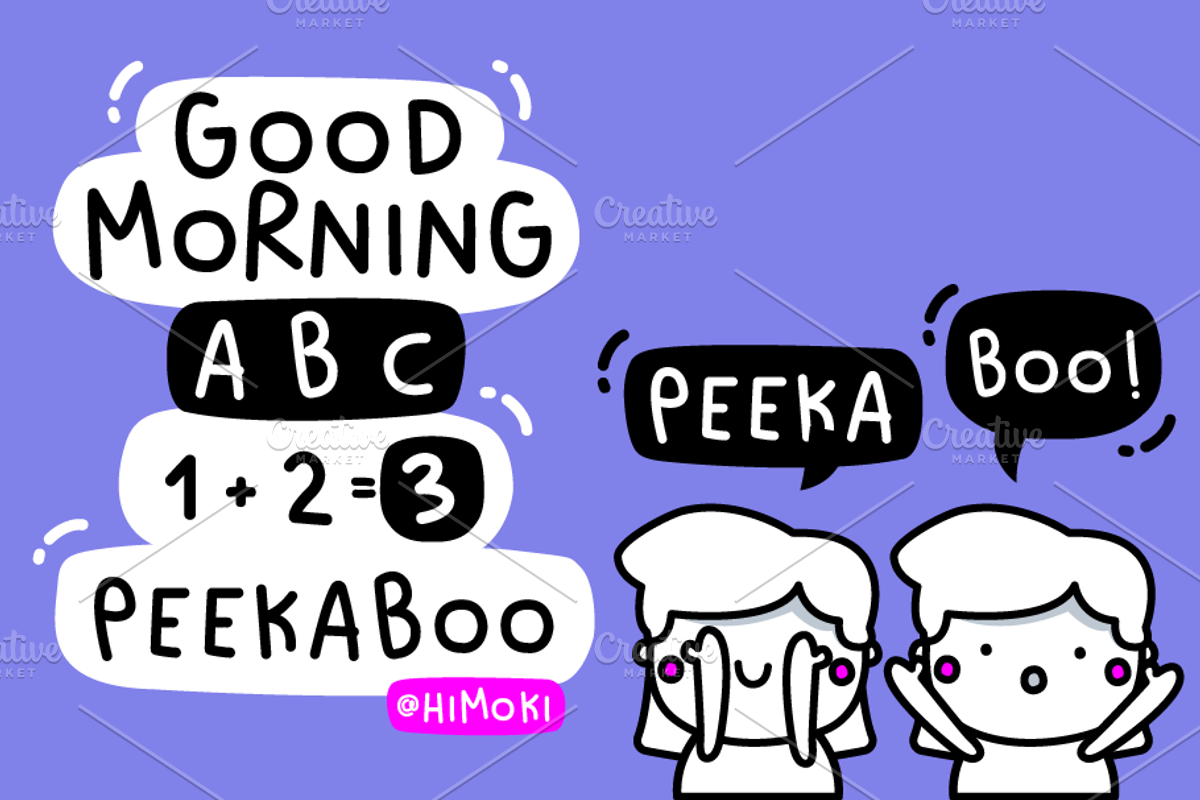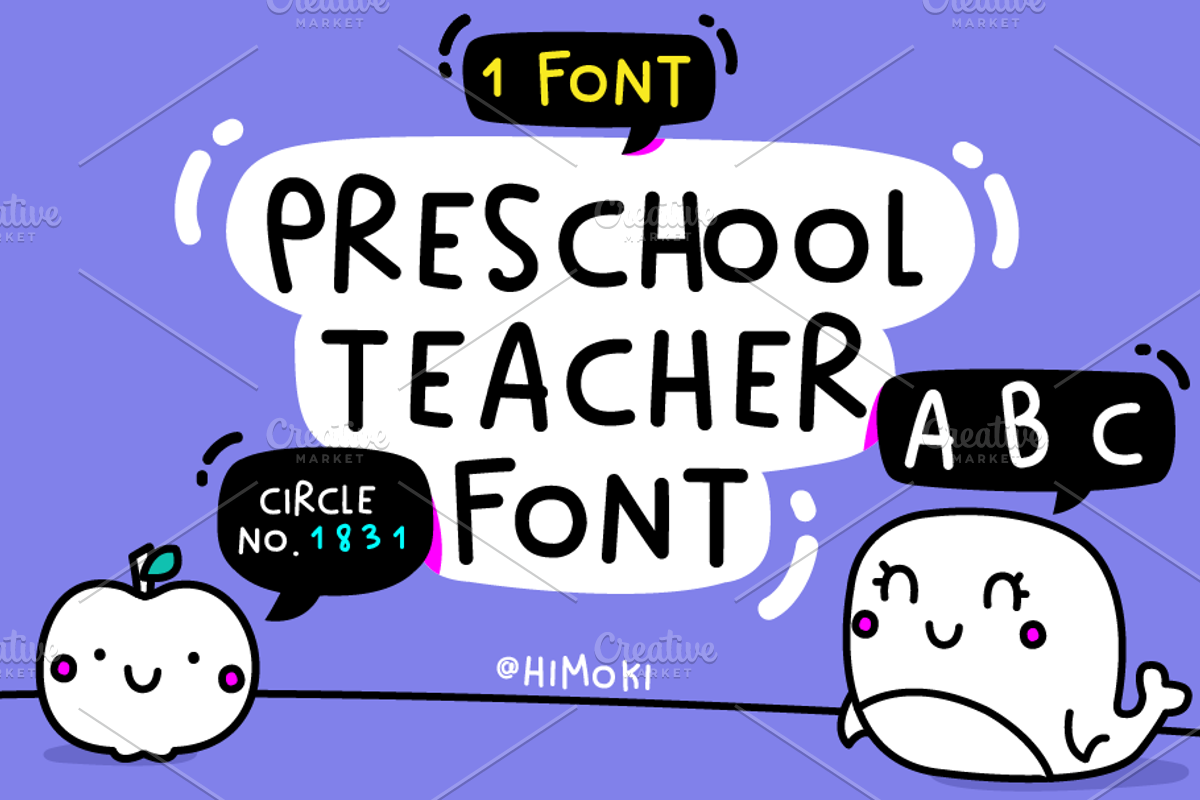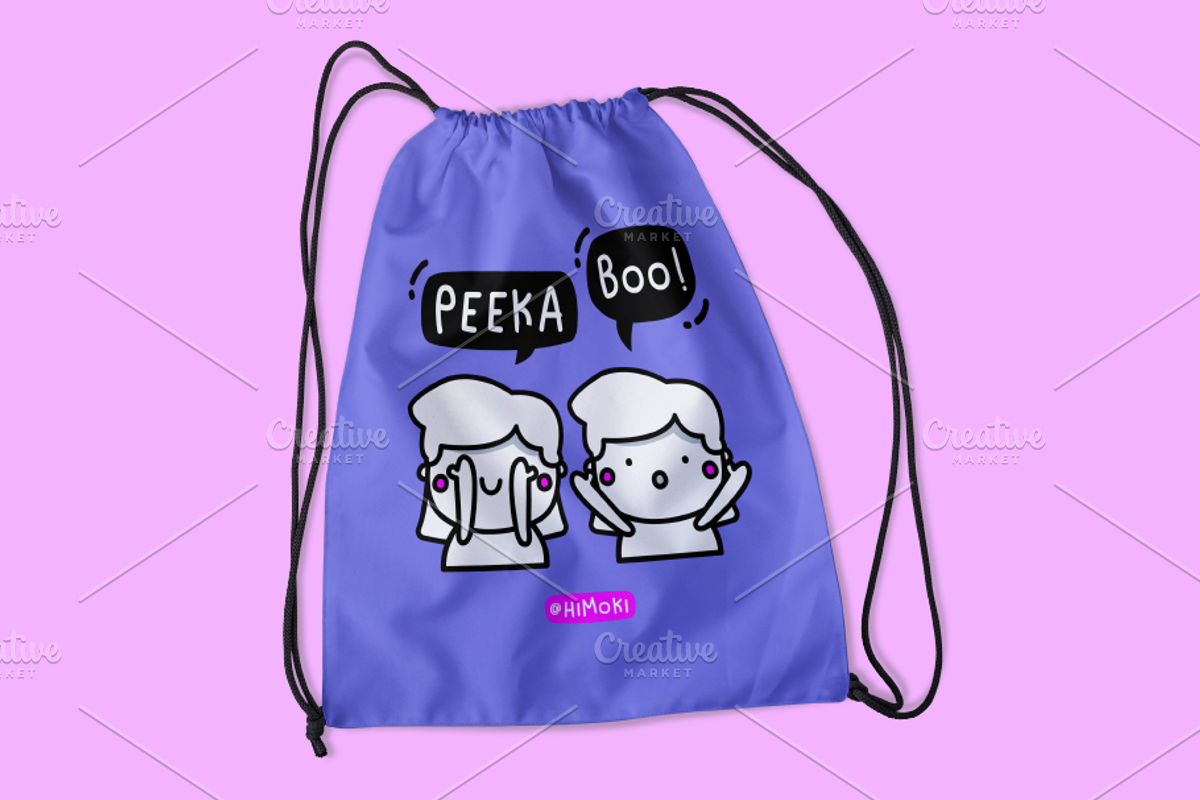
Circle.Preschool.Teacher.kids.font
Circle No. 1831 font by Himoki
Preschool teacher font, great for design and compositions. //otf //1 fonts
Circle.Preschool.Teacher.kids.font by himoki fits naturally into Branding, posters, packaging, typography.